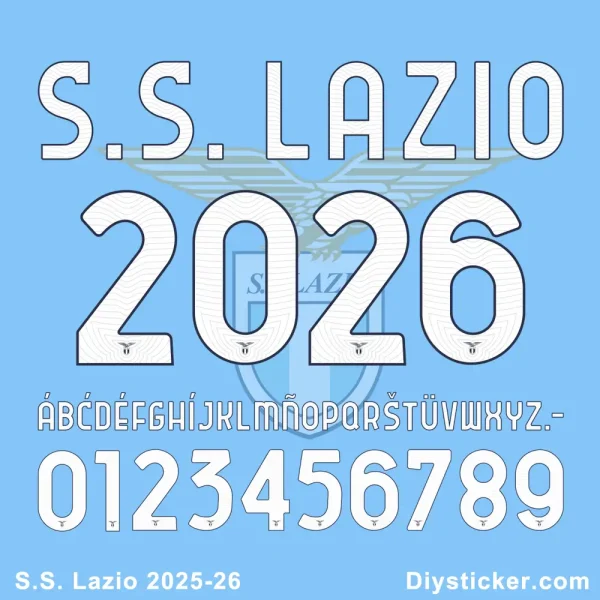
S.S. Lazio 2025-26 Font Download
Get the official S.S. Lazio 2025-26 font, perfect for personalizing jerseys, fan art, or design projects. This download includes TTF, OTF, AI, CDR, and PDF formats for comprehensive use.
Get the S.S. Lazio 2025-26 font, perfect for personalizing jerseys, fan art, or design projects. This download includes TTF, OTF, AI, CDR, and PDF formats for comprehensive use.